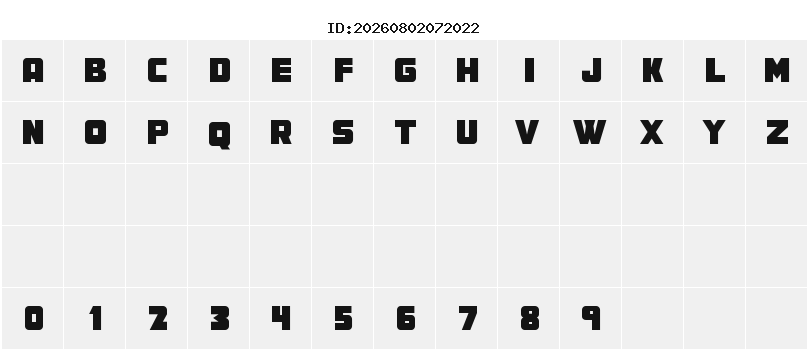
• Font Name: MEF Display
• Full Font Name: MEF Display
• Designer: Lolita Suleimanova
About MEF Display.ttf
MEF Display.ttf is a modern, elegant sans-serif font designed for ultimate readability and visual harmony. Perfect for branding, headlines, web design, and print materials.